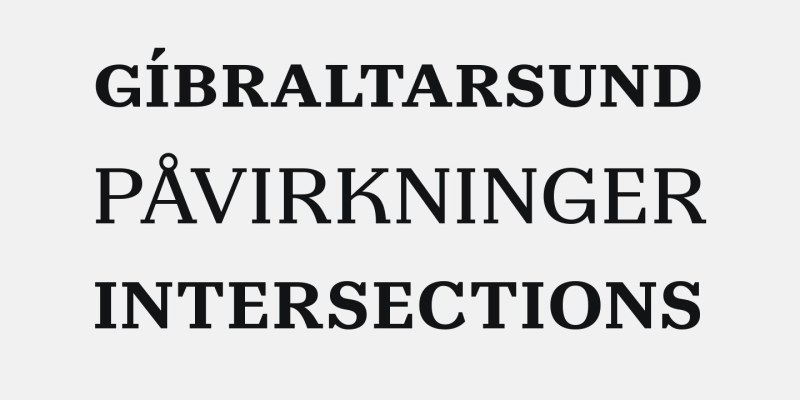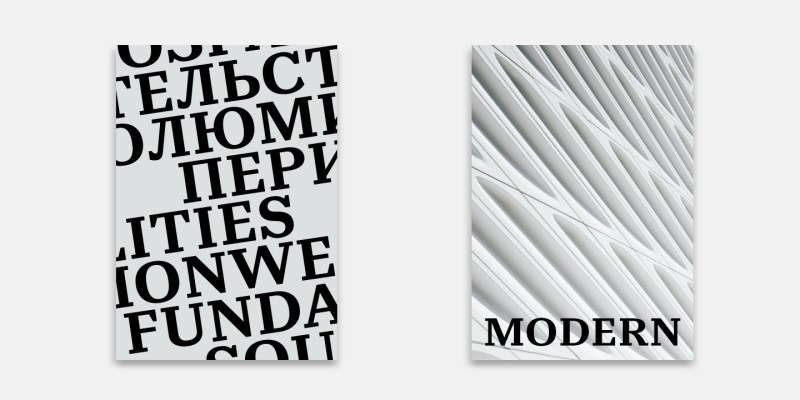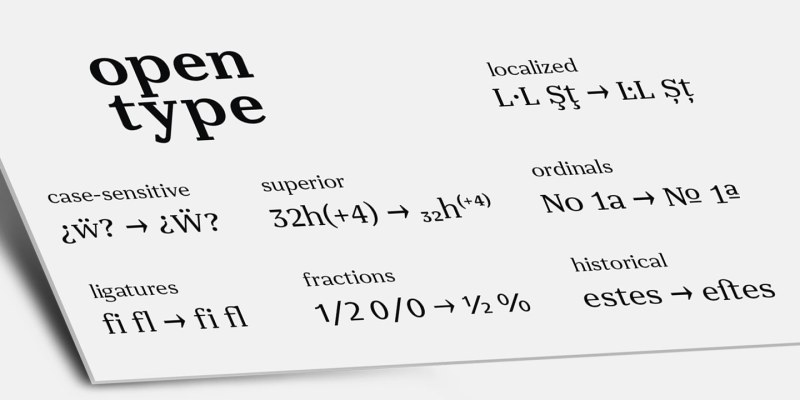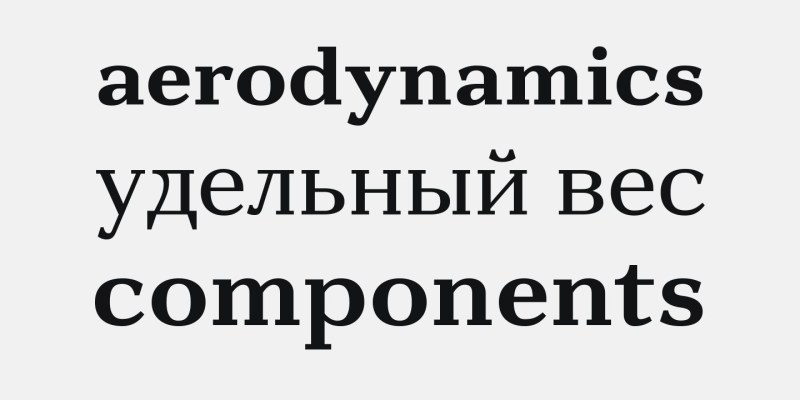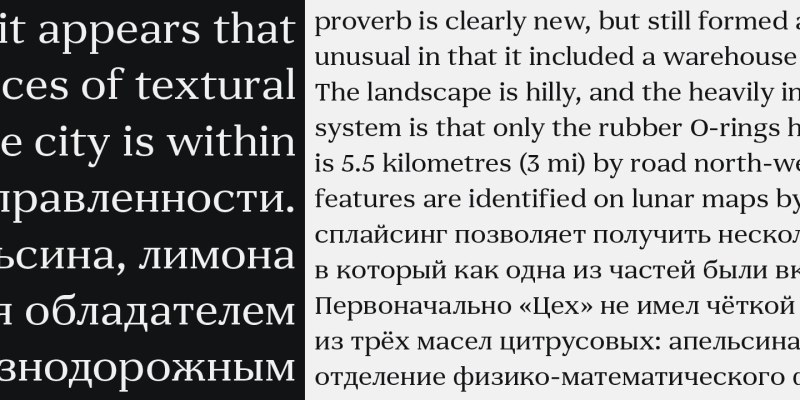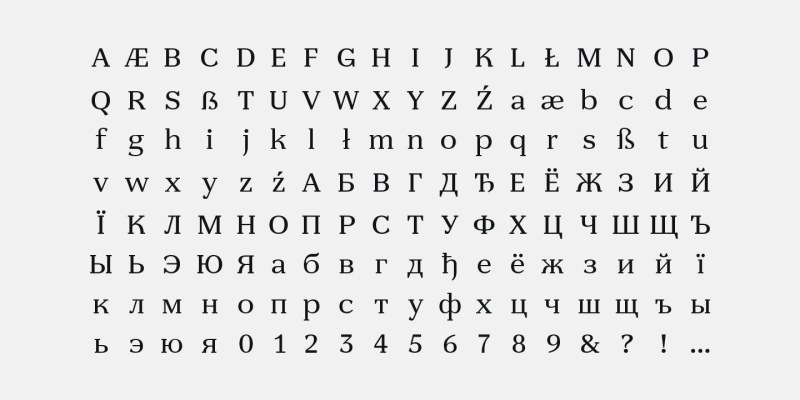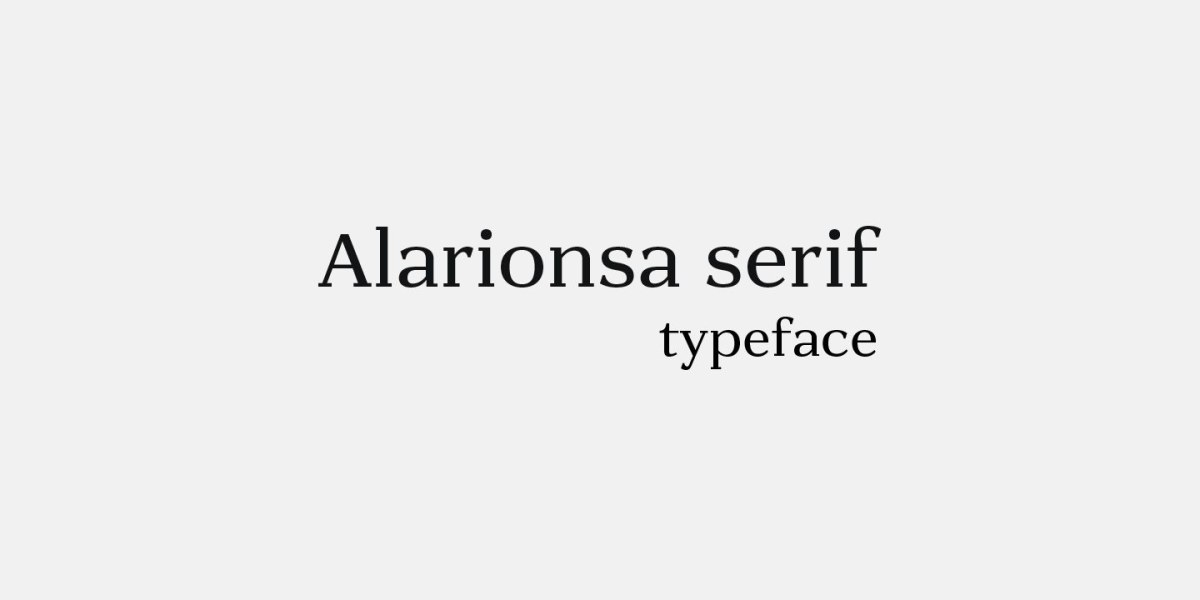
Alarionsa Serif Font Family
Alarionsa – font with straight horizontal serifs, vertical serifs have a slight angle of inclination. Lowercase letters are designed with somewhat inflated x-height. Perfect for both creating headlines and regular text.
Alarionsa Serif Font Family is a Serif Fonts font that brings a professional and versatile look to your projects. Alarionsa – font with straight horizontal serifs, vertical serifs have a slight angle of inclination.